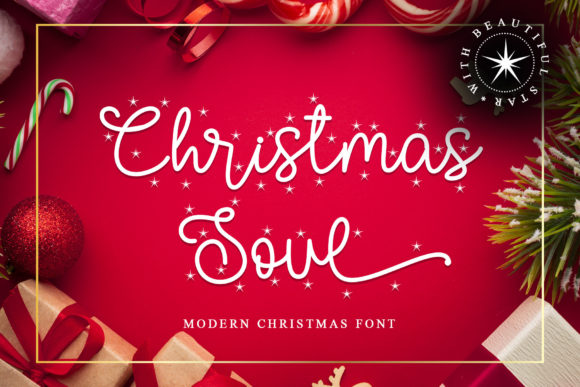
Immerse yourself in the festive spirit with Christmas Soul, an enchanting script font that encapsulates the magic of the holiday season. Delicately crafted by Stefani Letter, this thin lettered marvel embodies elegance and charm, making it the perfect addition to your digital creations.
Whether you're designing heartwarming Christmas cards, creating enchanting invitations, or personalizing festive branding, Christmas Soul will elevate your projects with its captivating presence. Its delicate strokes and neat appearance add a touch of refinement, while its PUA encoding grants you effortless access to a treasure trove of glyphs and ligatures, unlocking endless creative possibilities.
With Christmas Soul at your fingertips, you'll embark on a journey of creativity, transforming your digital designs into captivating masterpieces. Bring your holiday cheer to life with this exquisite font, and let your imagination soar as you create designs that resonate with warmth and festive charm.
Indulge in the beauty of Christmas Soul and let your creativity shine. It's the perfect font to capture the essence of the holiday season and spread joy through your digital creations. So, embrace the holiday spirit, download Christmas Soul today, and embark on a journey of festive design exploration!